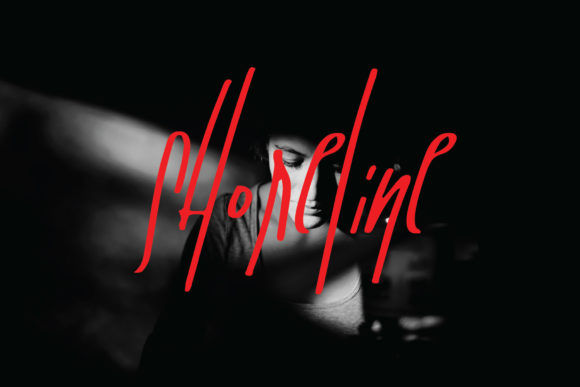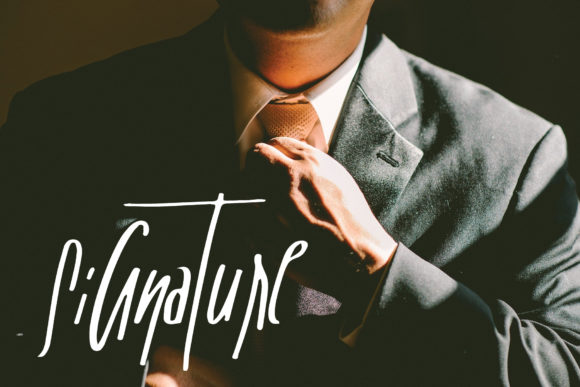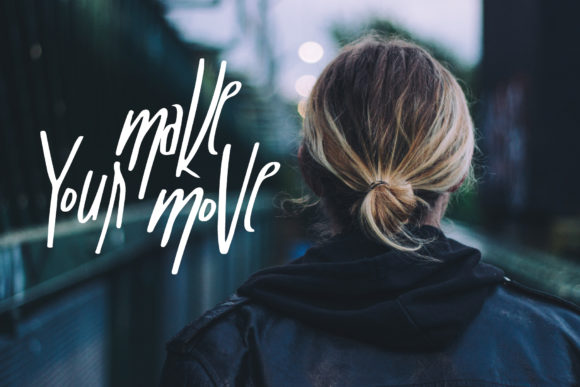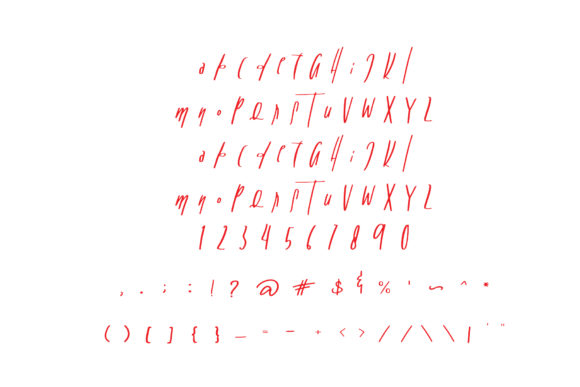
Shoreline Font
About Shoreline Font
Shoreline is a fun and gorgeous script font with a serious vibe. Use it to add an authentic charm to any design project!